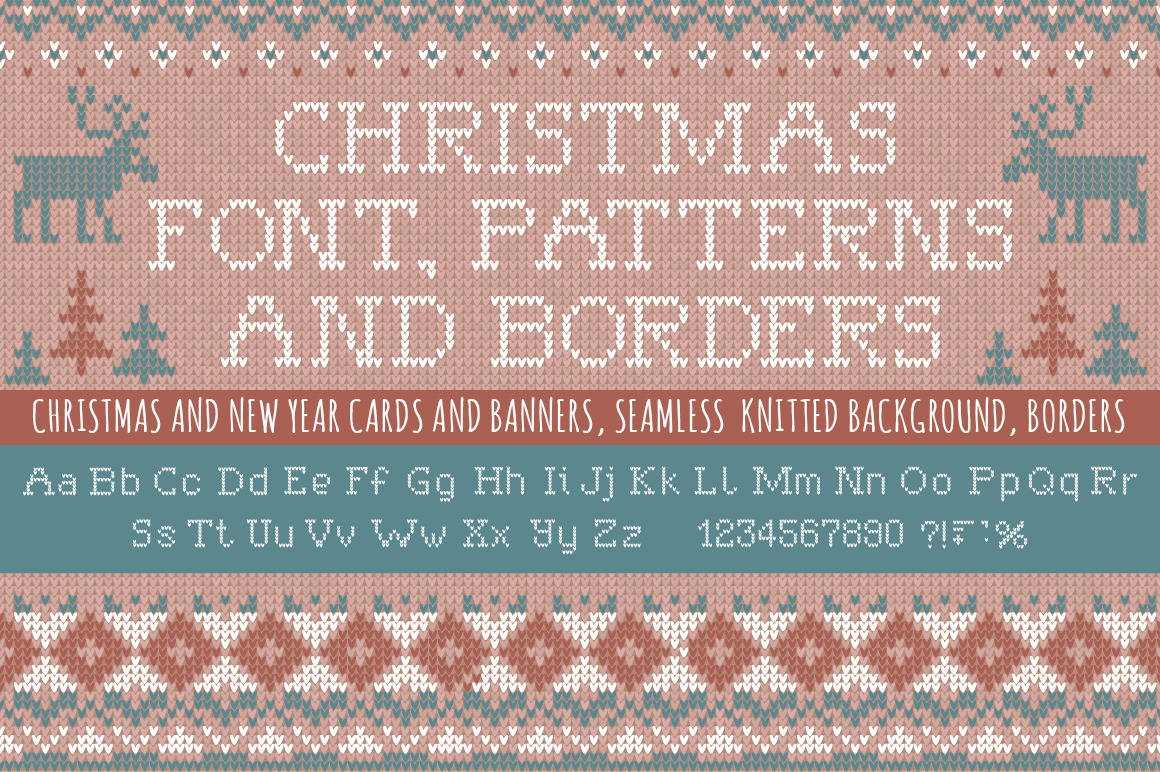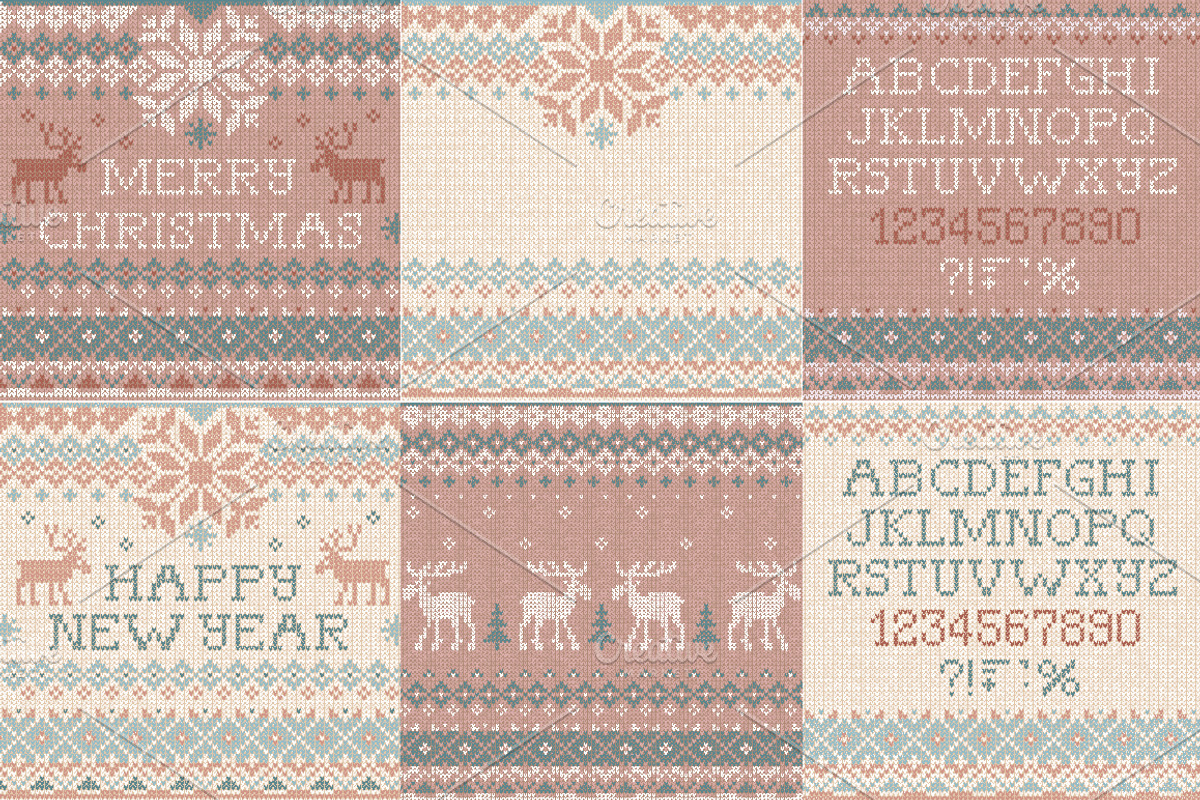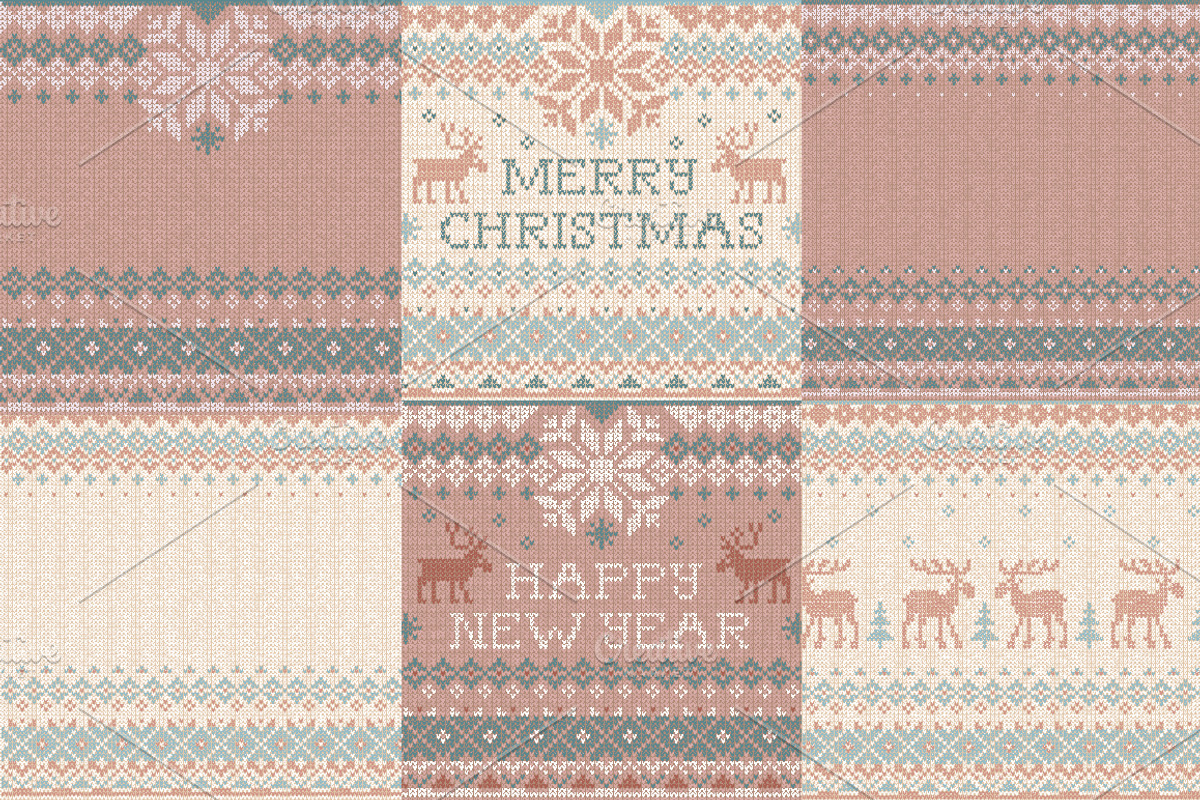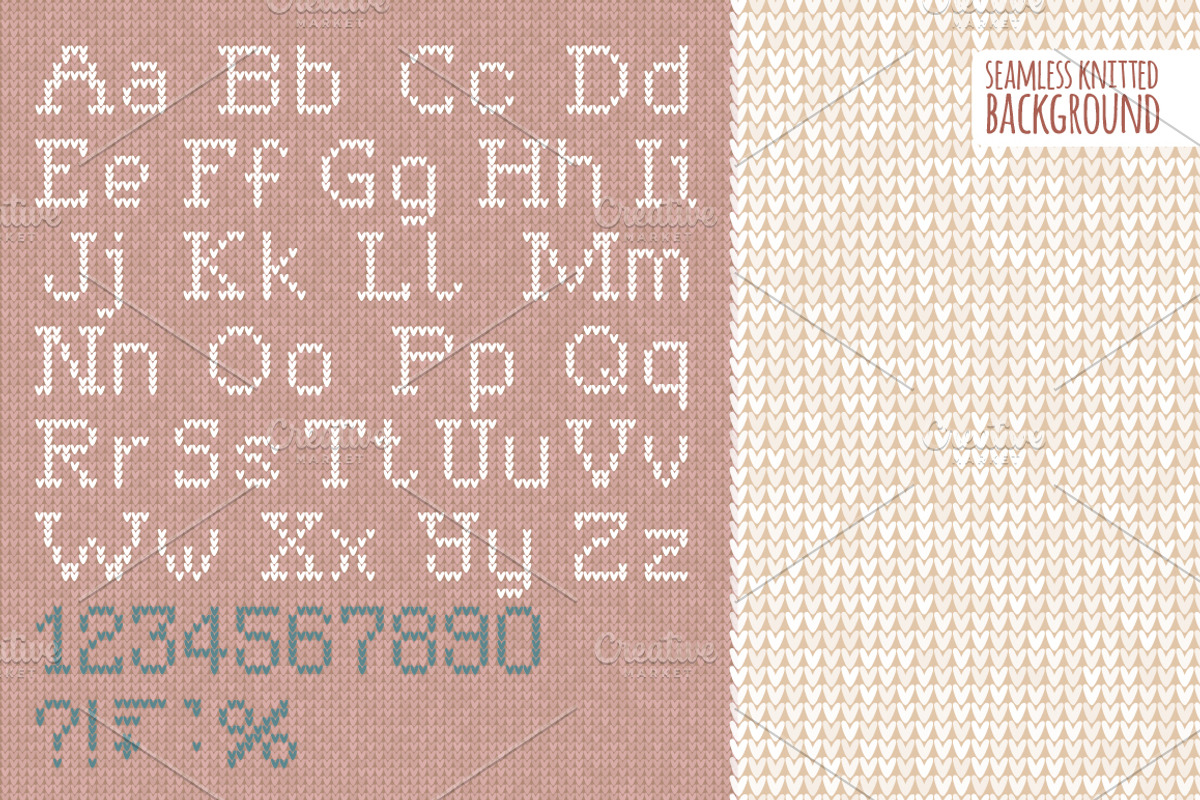
Knitted Christmas font and patterns
Vector illustration Handmade knitted background pattern with font alphabet abc letters, numbers, punctuation marks, scandinavian ornaments with funny knitted animals sweater. White, beige, brown, blue color. Flat style
- 2 Seamless knitted background: light and dark (You can use these seamless patterns for big areas without loosing quality)
- 2 knitted sets uppercase and lowercase letters of the Latin alphabet, figures and punctuation marks: light and dark
- prepared inscriptions for your design: 2 Merry Christmas and 2 Happy New Year cards (2 color variants, light and dark)
- 6 empty backgrounds with ornaments for your design with frames, borders. Scandinavian ornaments with funny knitted animals
Merry Christmas Ugly Sweater cards with knitted patterns and ornaments in scandinavian style with deers. Christmas Party invitation. X-mas party.